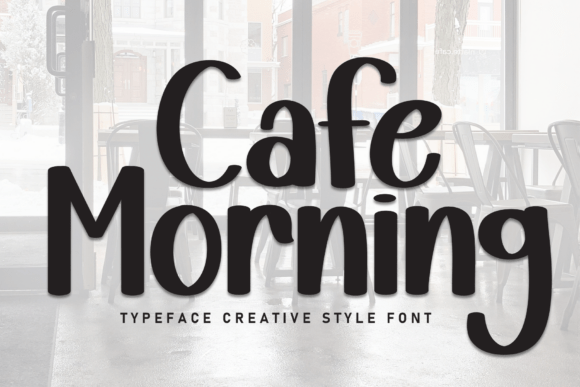
Cafe Morning Font: A Delightful Handwritten Display Font
Are you looking for a font that can add a touch of sweetness and friendliness to your designs? Look no further than Cafe Morning Font, a charming handwritten display font that is perfect for wedding invitations, greeting cards, and any design seeking a dash of fun.
What is Cafe Morning Font?
Cafe Morning Font is a delightful and personable handwritten display font that is designed to bring a touch of warmth and personality to your designs. Its carefree appeal turns any ordinary text into an extraordinary work of art, vivifying your creative visions.
This charming font is perfect for anyone looking to add a dash of fun and playfulness to their designs. Whether you’re creating wedding invitations, greeting cards, or any other type of design, Cafe Morning Font is sure to infuse your work with an irresistible, playful touch.
Key Features of Cafe Morning Font
- Handwritten display font: Cafe Morning Font is a handwritten display font that is designed to add a personal touch to your designs.
- Sweet and friendly: This font is perfect for designs that require a touch of sweetness and friendliness.
- Perfect for wedding invitations and greeting cards: Cafe Morning Font is ideal for wedding invitations, greeting cards, and any other type of design that requires a personal touch.
- Carefree appeal: This font has a carefree appeal that turns any ordinary text into an extraordinary work of art.
- Playful and fun: Cafe Morning Font is perfect for designs that require a dash of fun and playfulness.
Usage Ideas for Cafe Morning Font
Cafe Morning Font is a versatile font that can be used in a variety of designs, including:
- Wedding invitations: This font is perfect for wedding invitations, as it adds a touch of sweetness and romance to your design.
- Greeting cards: Cafe Morning Font is ideal for greeting cards, as it brings a personal touch to your message.
- Social media graphics: This font is perfect for social media graphics, as it adds a playful and fun touch to your design.
- Logos and branding: Cafe Morning Font can be used in logos and branding, as it adds a personal and friendly touch to your brand.
Why Choose Cafe Morning Font?
There are many reasons why you should choose Cafe Morning Font for your designs. Here are a few:
- Unique and creative: Cafe Morning Font is a unique and creative font that will set your designs apart from the rest.
- Easy to read: This font is easy to read, making it perfect for designs that require a clear and concise message.
- Versatile: Cafe Morning Font is a versatile font that can be used in a variety of designs, from wedding invitations to social media graphics.
- High-quality: This font is of high-quality, making it perfect for professional designs.
Tips for Using Cafe Morning Font
Here are a few tips for using Cafe Morning Font in your designs:
- Use it sparingly: Cafe Morning Font is a bold font, so it’s best to use it sparingly to avoid overwhelming your design.
- Pair it with other fonts: This font pairs well with other fonts, so feel free to experiment with different combinations.
- Use it in large sizes: Cafe Morning Font is perfect for large sizes, so don’t be afraid to use it in headings and titles.
- Experiment with colors: This font looks great in a variety of colors, so feel free to experiment with different colors to find the one that works best for your design.
Cafe Morning Font is a delightful and personable handwritten display font that is perfect for adding a touch of sweetness and friendliness to your designs. Its carefree appeal turns any ordinary text into an extraordinary work of art, vivifying your creative visions. Whether you’re creating wedding invitations, greeting cards, or any other type of design, Cafe Morning Font is sure to infuse your work with an irresistible, playful touch.